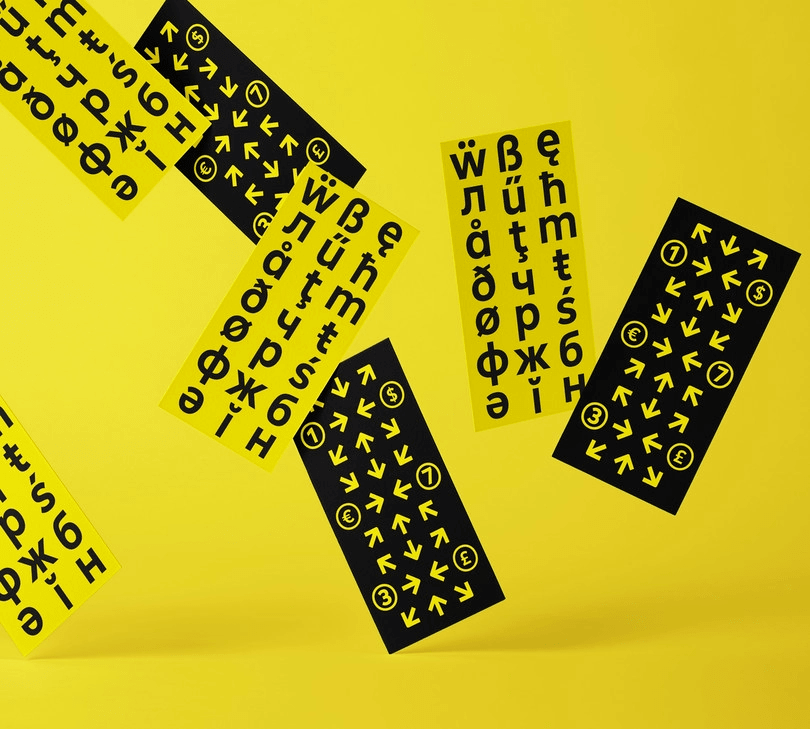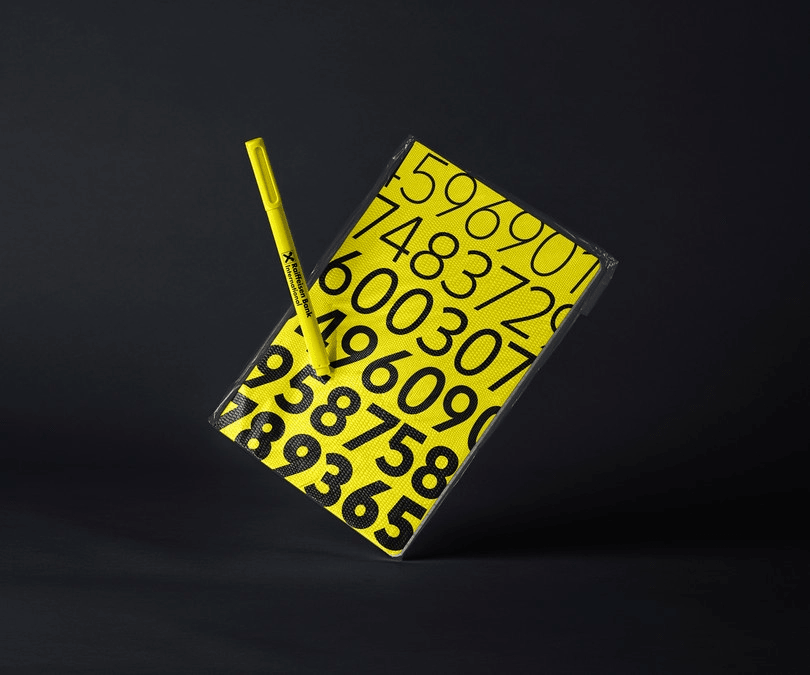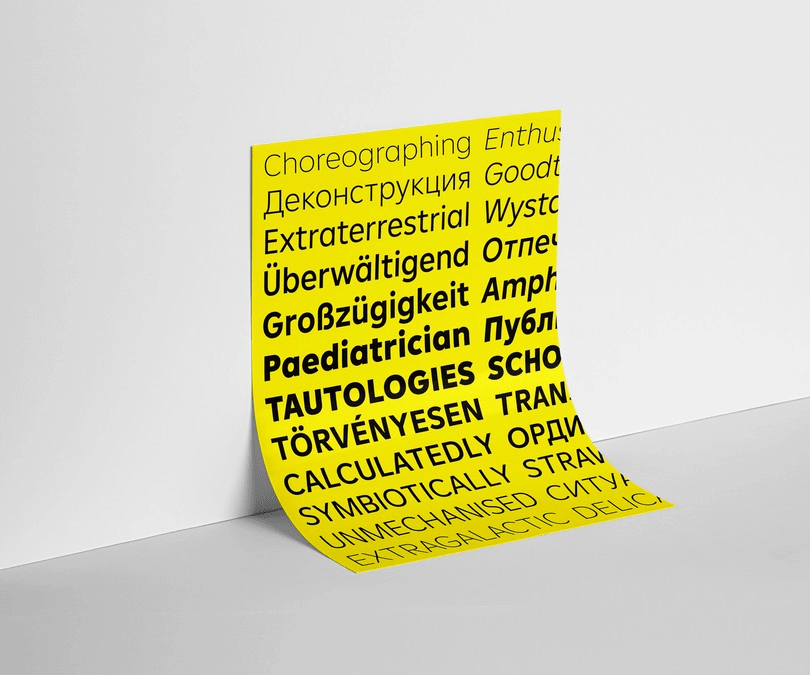
In our latest Studio connection session, Emilios Theofanous, Senior Type Designer at Monotype, and Tom Foley, Creative Type Director at Monotype, are joined by Martin Kofler, Digital Brand Lead at Raiffeisen Bank International. We explore the role type played in Raiffeisen’s recent brand evolution, and we discuss the collaborative creative journey in creating their custom typeface ‘Amalia’.
Raiffeisen Bank International is a leading commercial and investment bank that considers Austria its home market. In 2018, Raiffeisen began to reshape its brand as its presence was growing in the digital world. They quickly identified that typography would play a key role in that transition and would be a crucial component in their refreshed identity.
Raiffeisen previously used Futura as its brand typeface, but a mix of licensing queries and lack of consistency across the group highlighted the need for a new approach. Raiffeisen reached out to the Monotype Studio for guidance on the best path forward.
After some discussions, Raiffeisen decided their best option was to develop a new custom typeface that served all their needs within one family, across digital and non-digital mediums. The typeface would need to be versatile in all markets across the globe, so the brief included a significant focus on international use. Working closely with Raiffeisen, Monotype delivered Amalia, Raiffeisen’s new “role model.” Make sure to watch the interview above for a more in-depth journey.